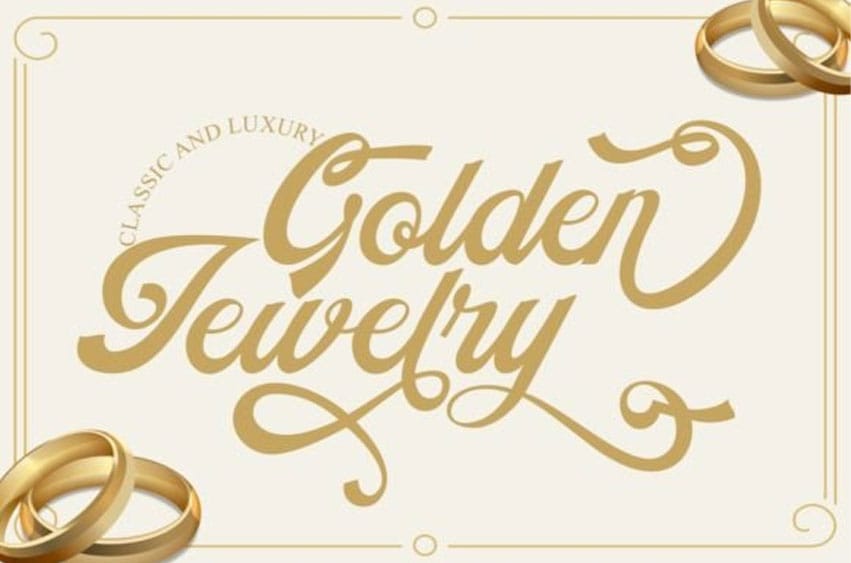
Golden Jewelry Font is a classy and elegant handwritten script font. It looks beautiful on a variety of designs requiring a personalized style, such as wedding invitations, thank you cards, greeting cards, logos, and so on.